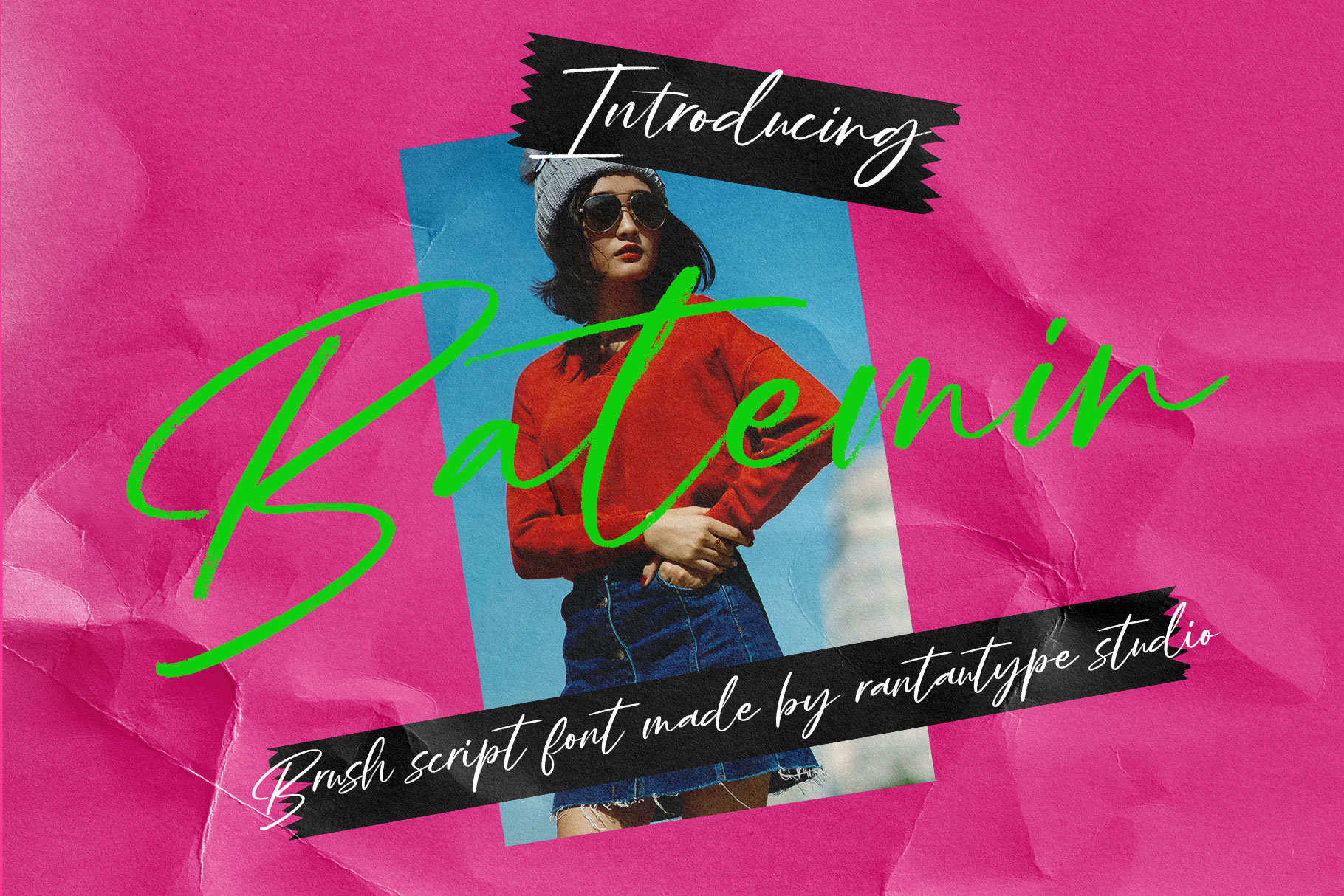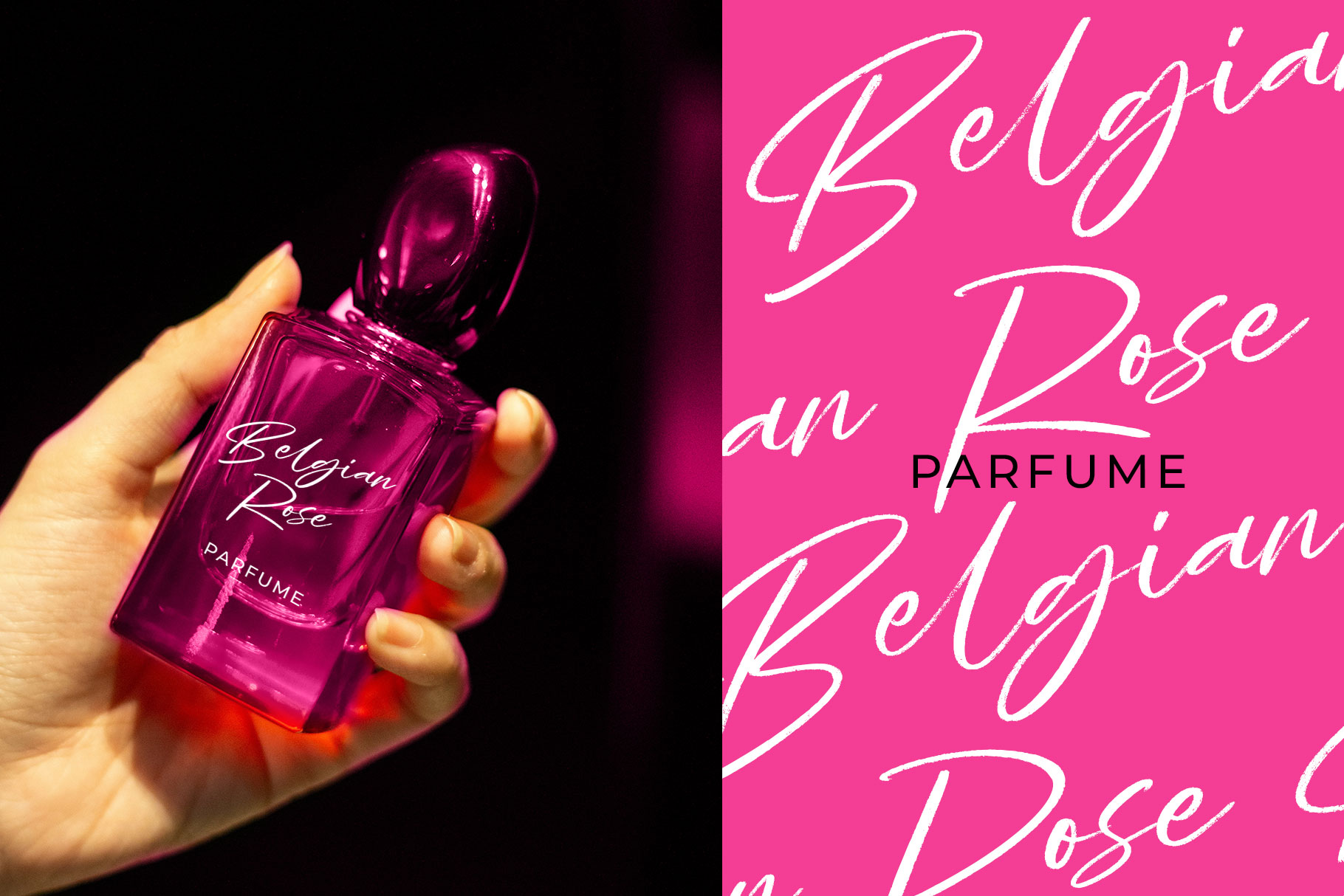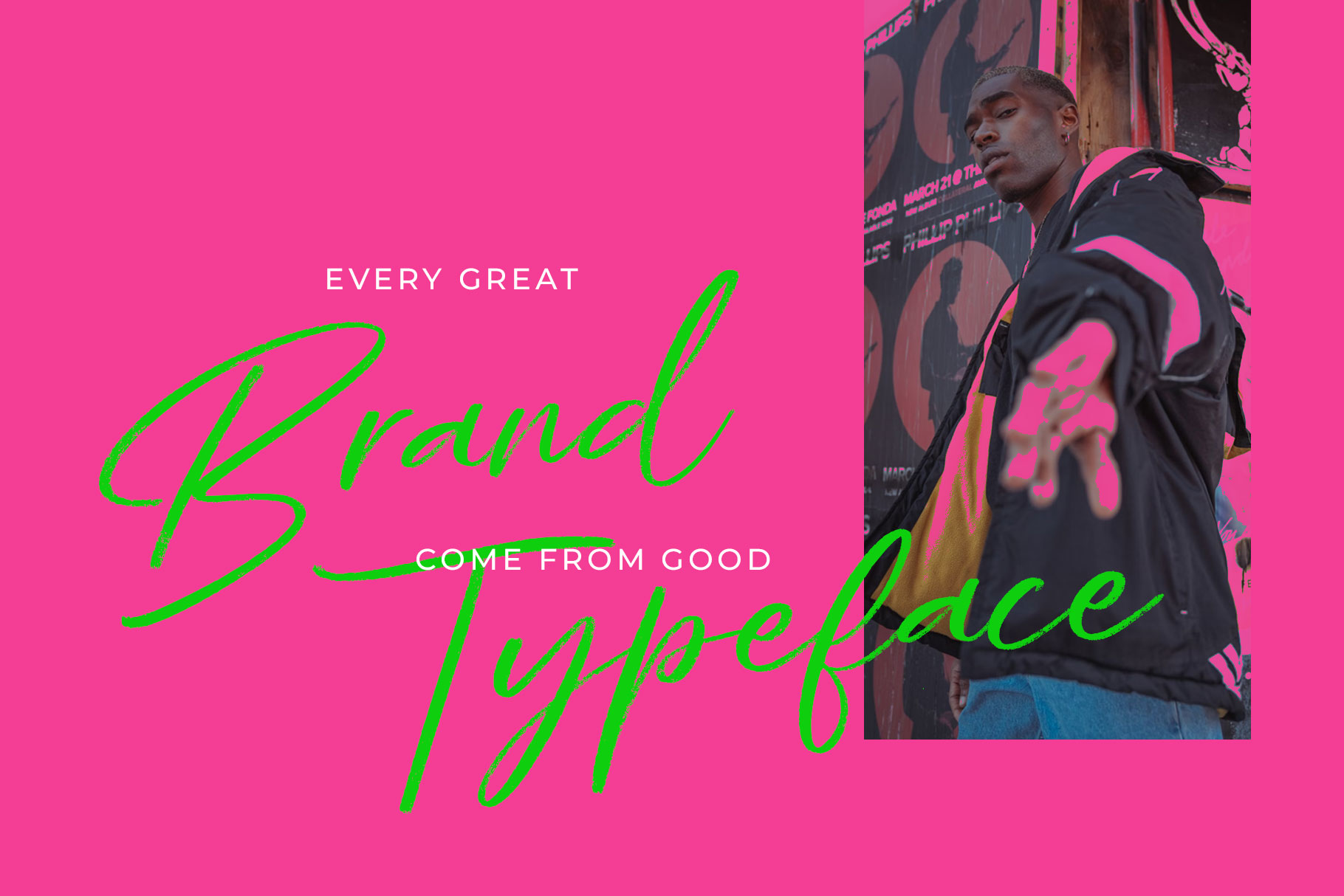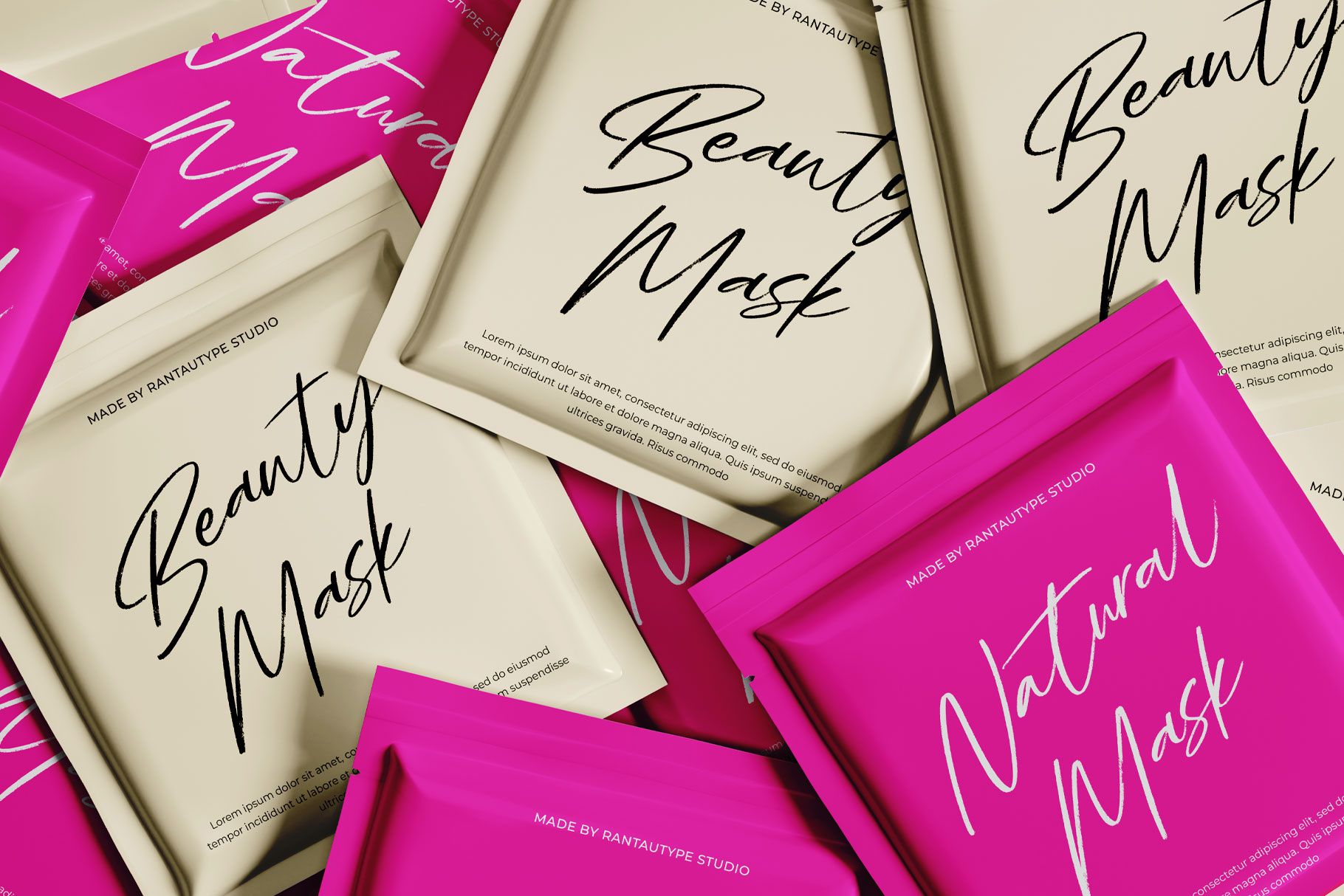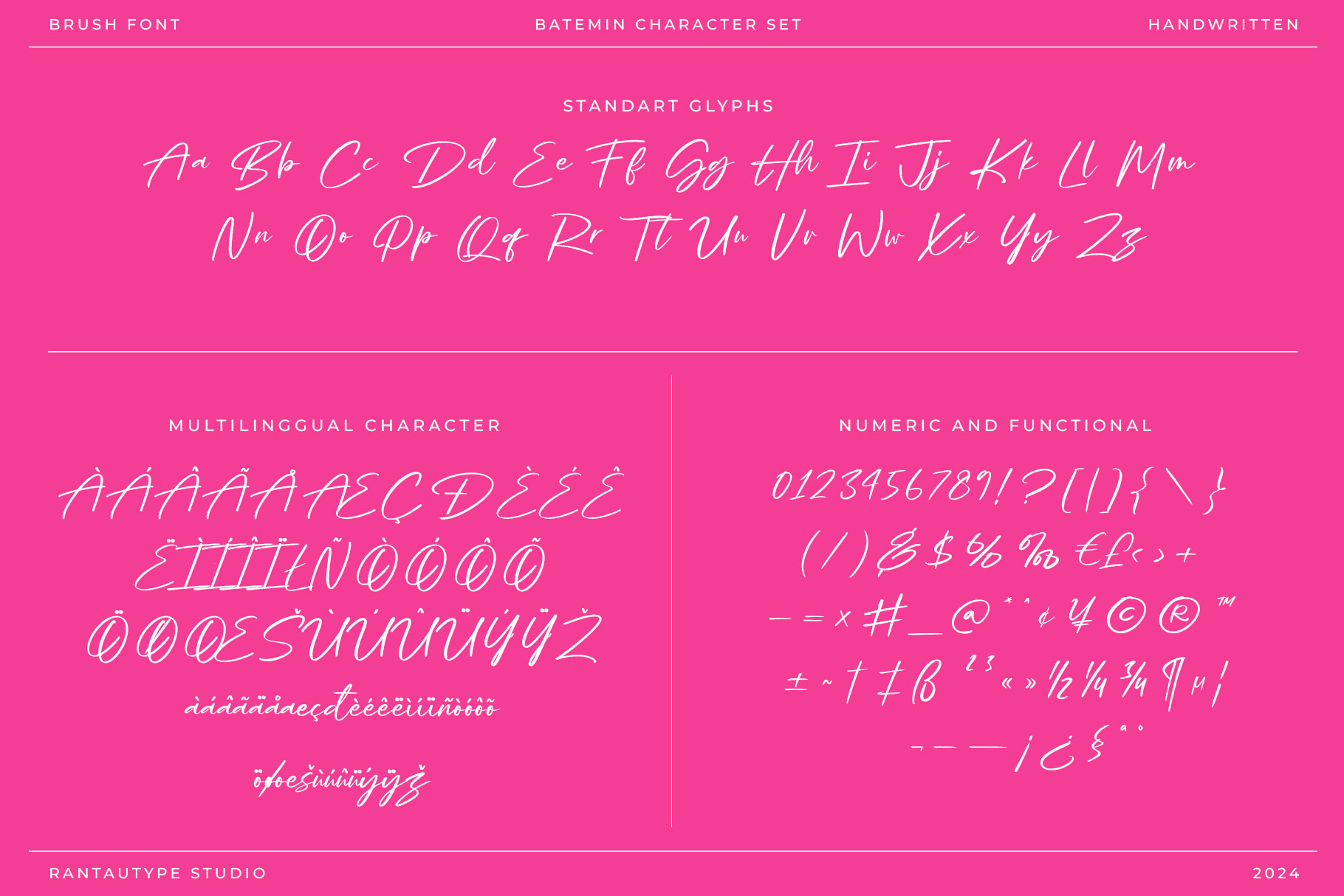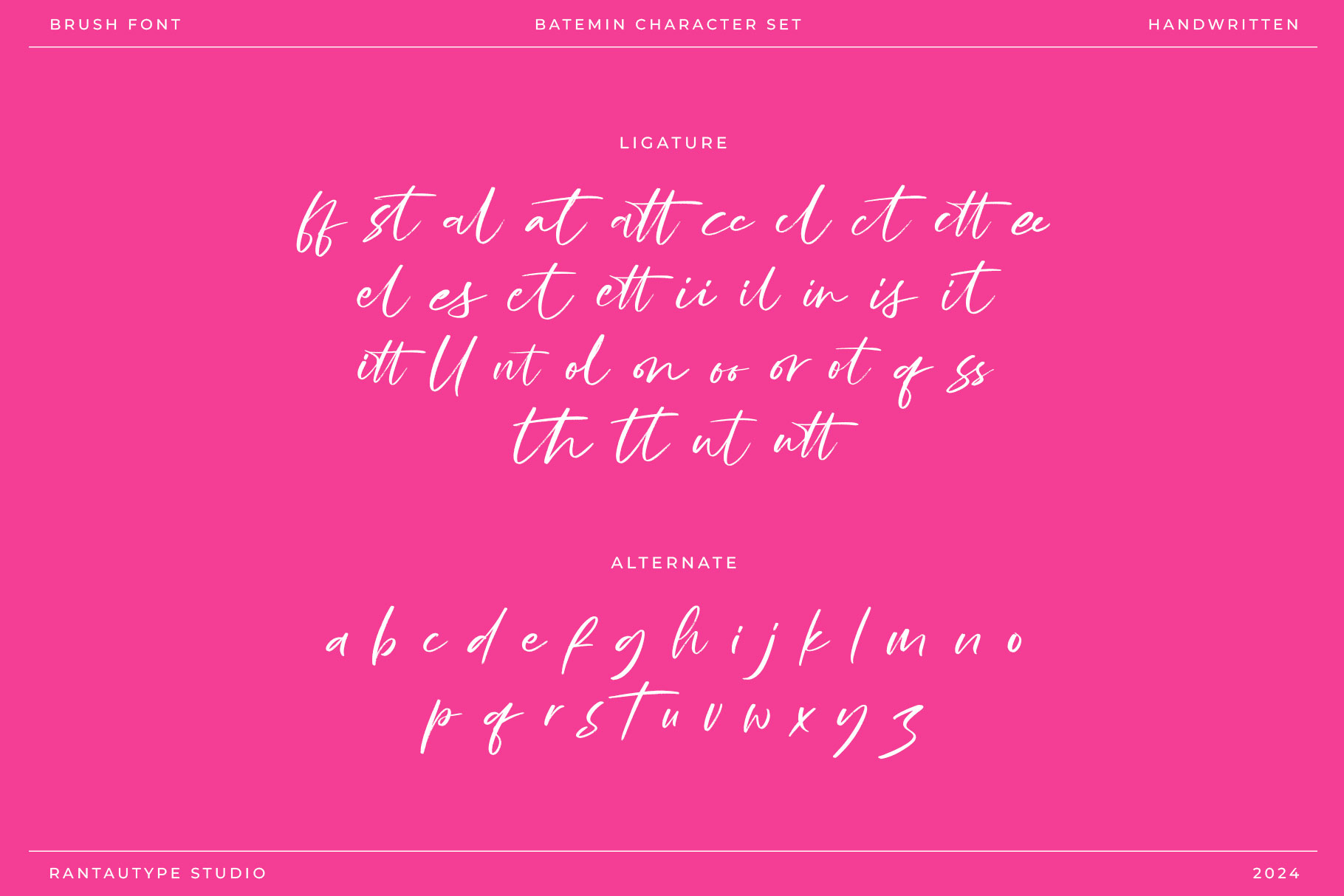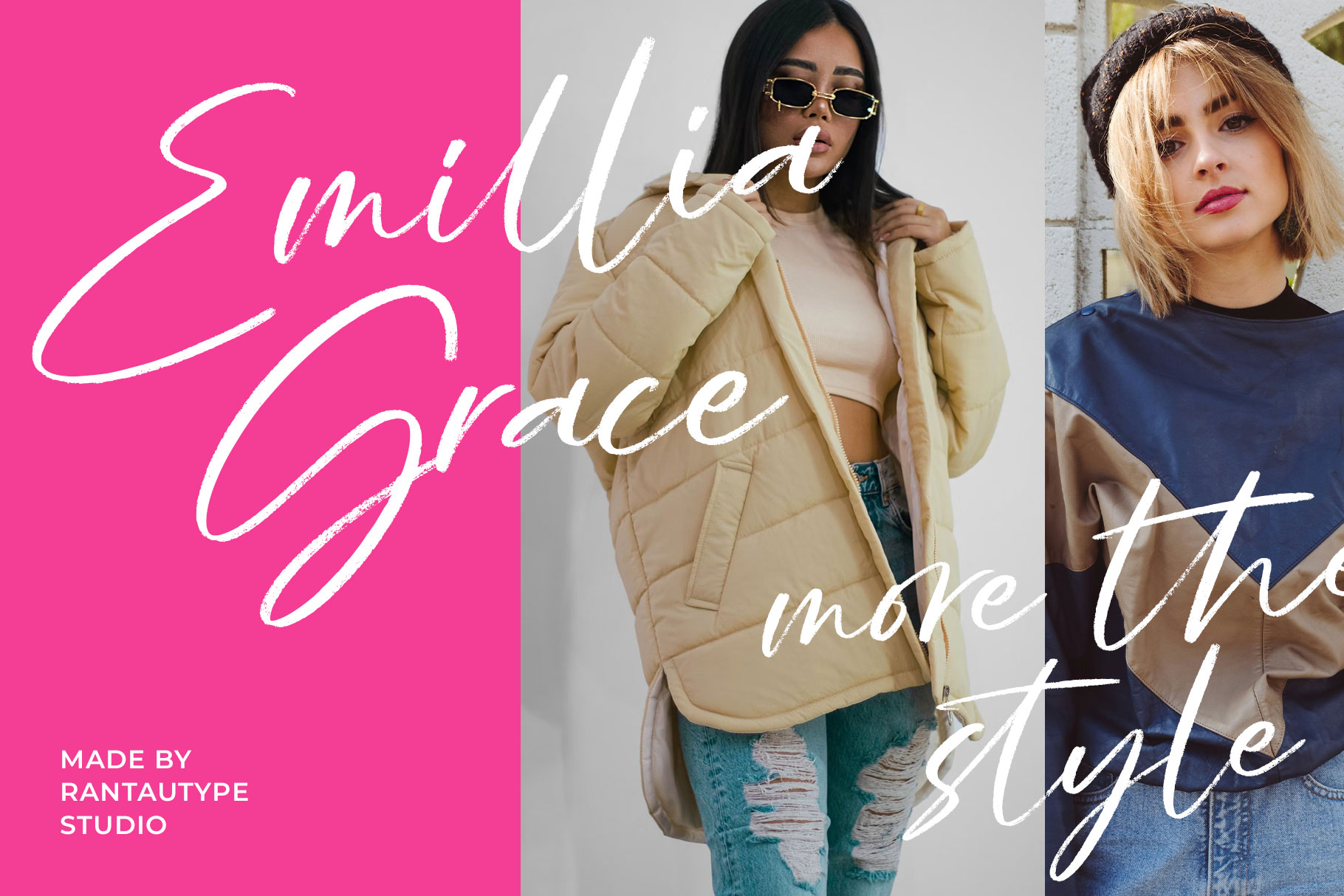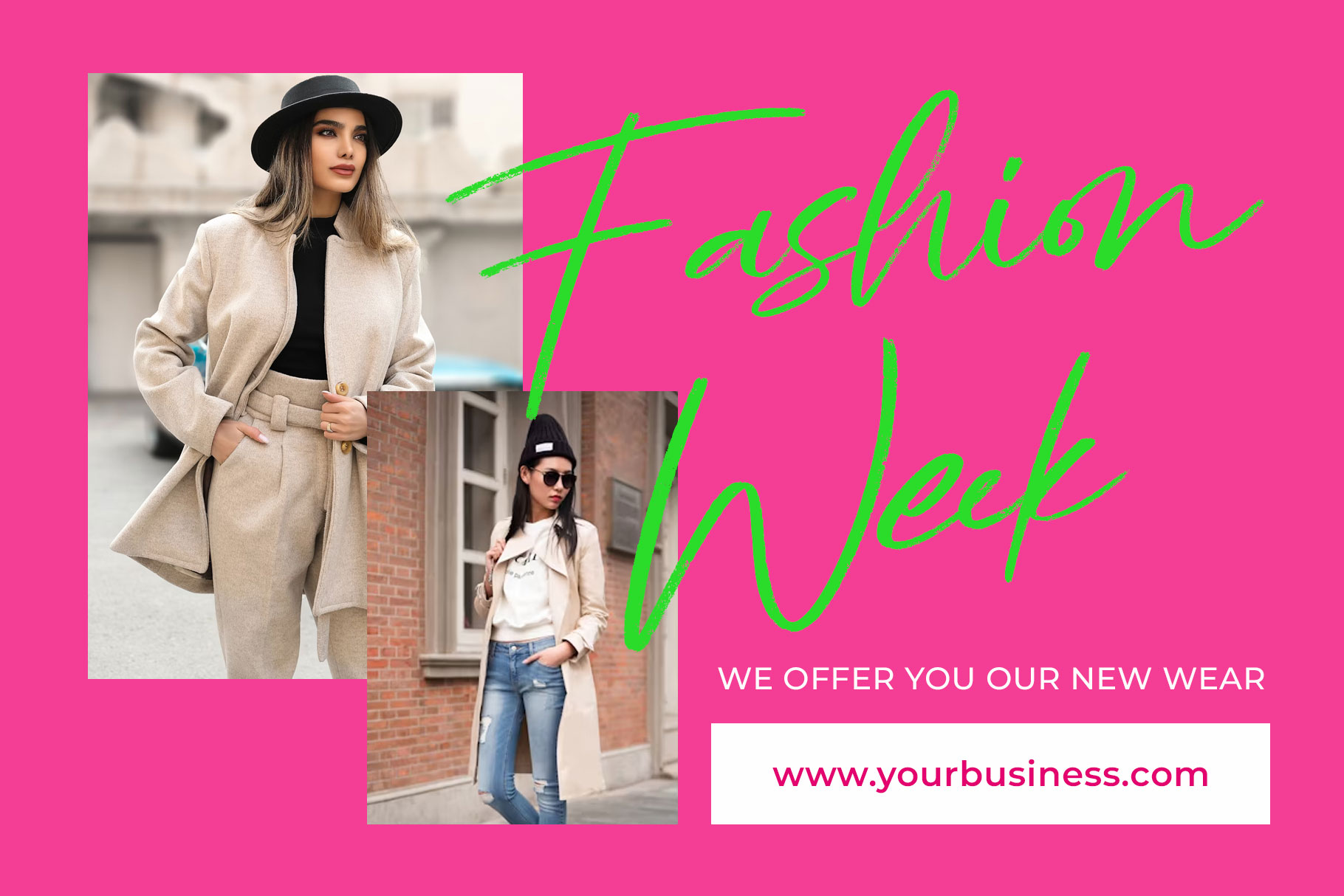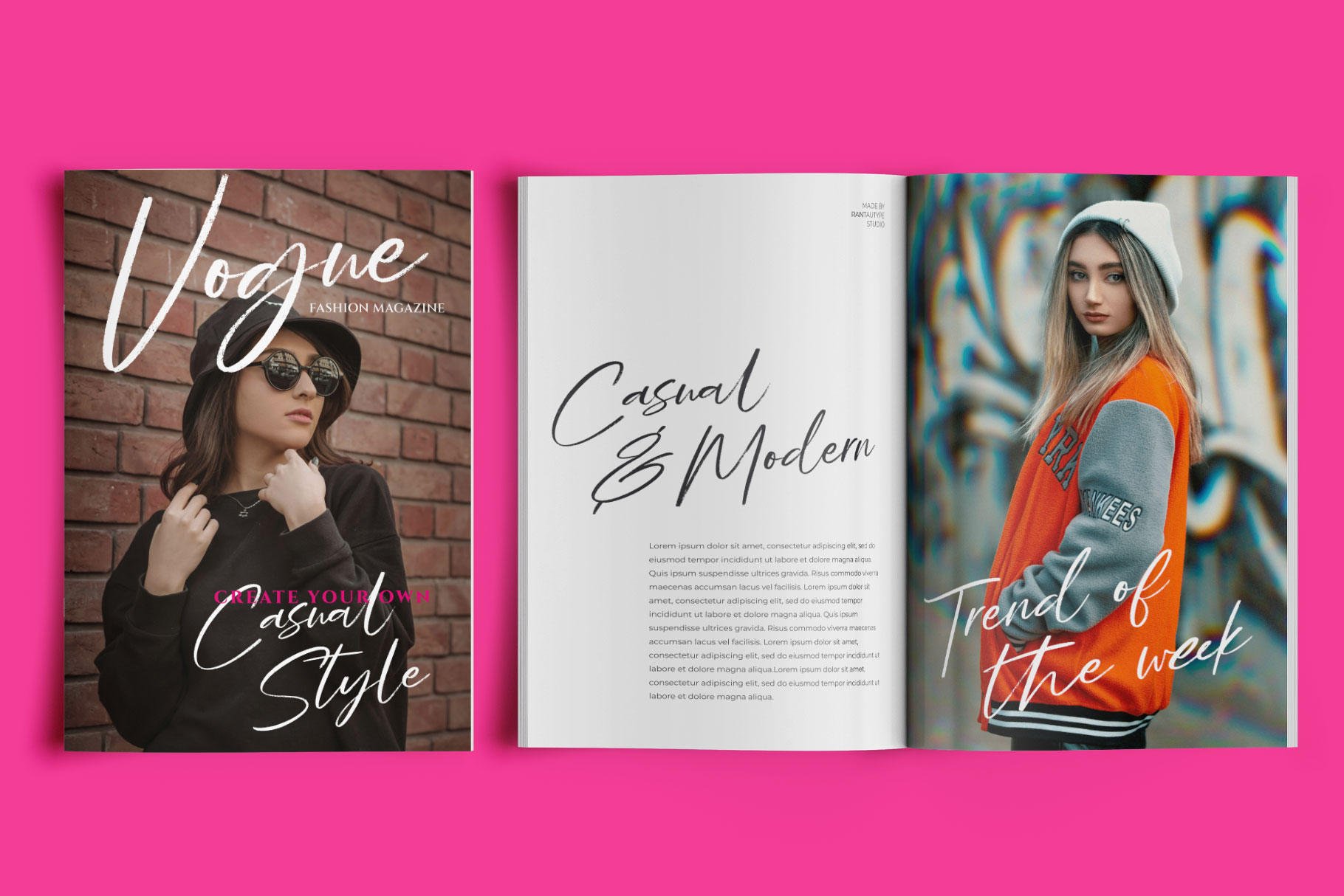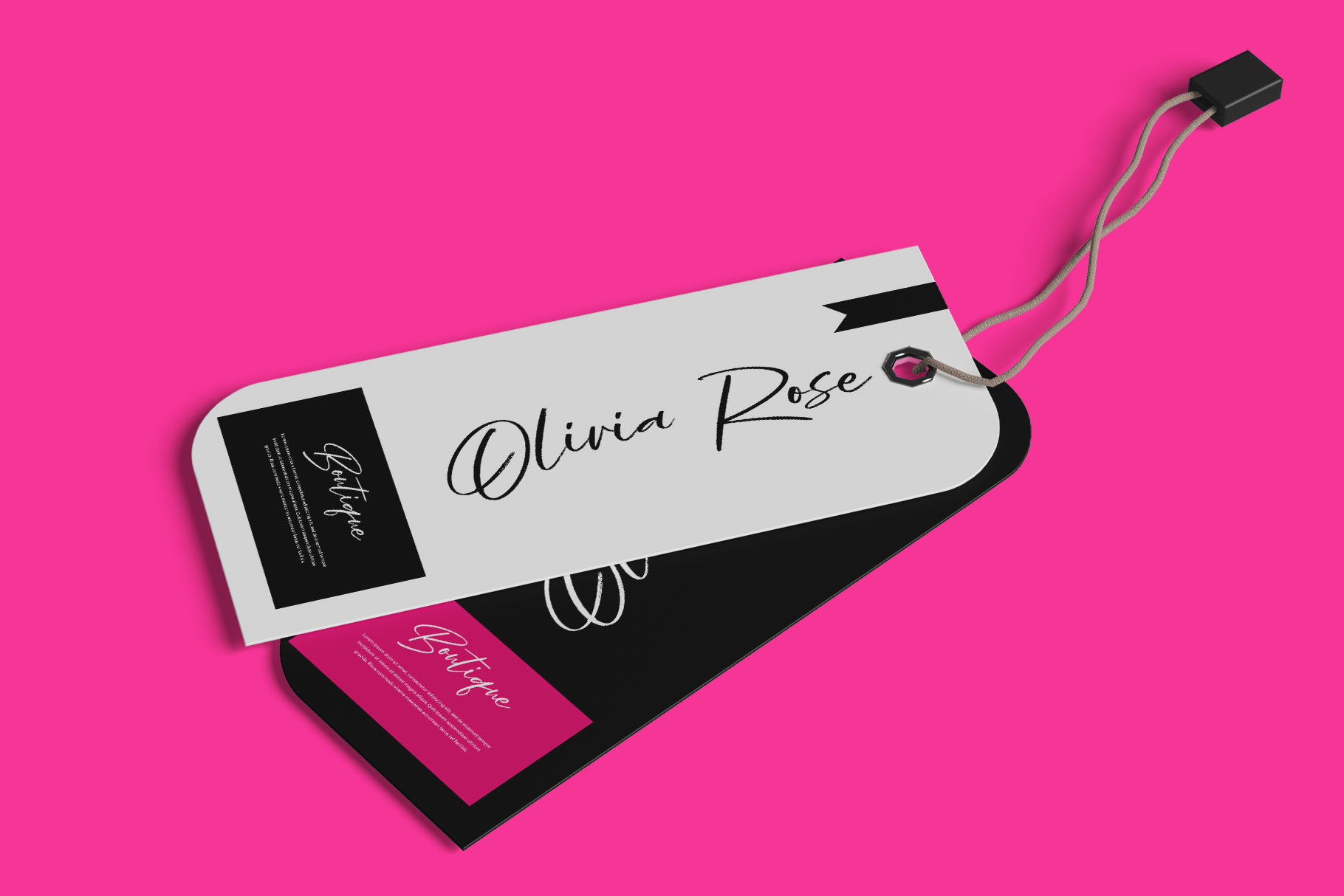
Batemin Brush Script Font
Batemin is brush scipt font with natural texture look. Batemia bring your design project look awesome and stand out. Batemin is a perfectly choice for any creative endeavor, creating elegant, modern, chic, lifestyle design such as logotype, title, cover, branding, invitations, wedding designs, display and magazine, social media posts, advertisements, printed quotes, product packaging, corporate brand, product designs, labels, photography, watermarks, special events and any other project with handwritten touch.